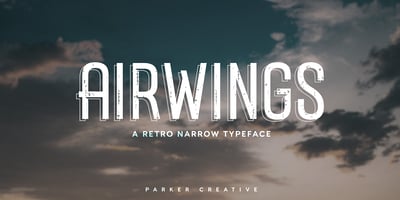
Airwings Font Family was designed by Alan Parker and published by Parker Creative. Airwings contains 3 styles and family package options. Airwings is a retro narrow typeface that includes Regular, Distressed, and Outline versions. Each version can be used on its own or combined and overlaid to create even more design options. Airwings is a versatile typeface that can be used in many ways for many different types of designs from album covers, to movie posters, clothing lines, restaurants, and more.Combine Regular and Outline versions to create a retro 3-D look. Use the Distressed version to add a grungy feel to your design.